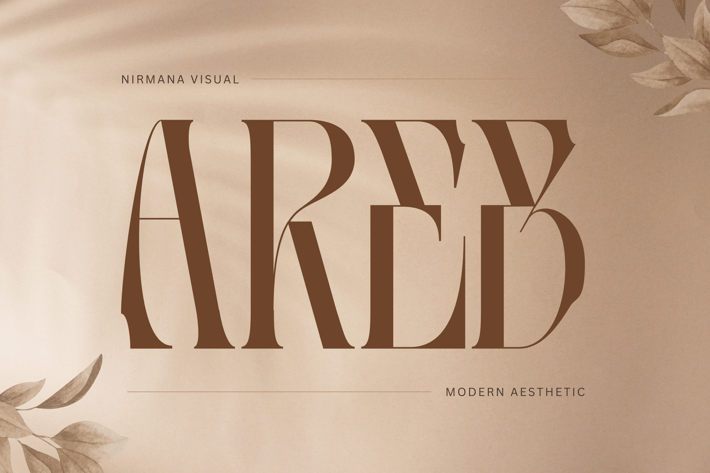
Areb - Branding Logo Font
Areb Font offers beautiful typographic harmony for a diversity of design projects, including logos & branding, social media posts, advertisements & product designs.